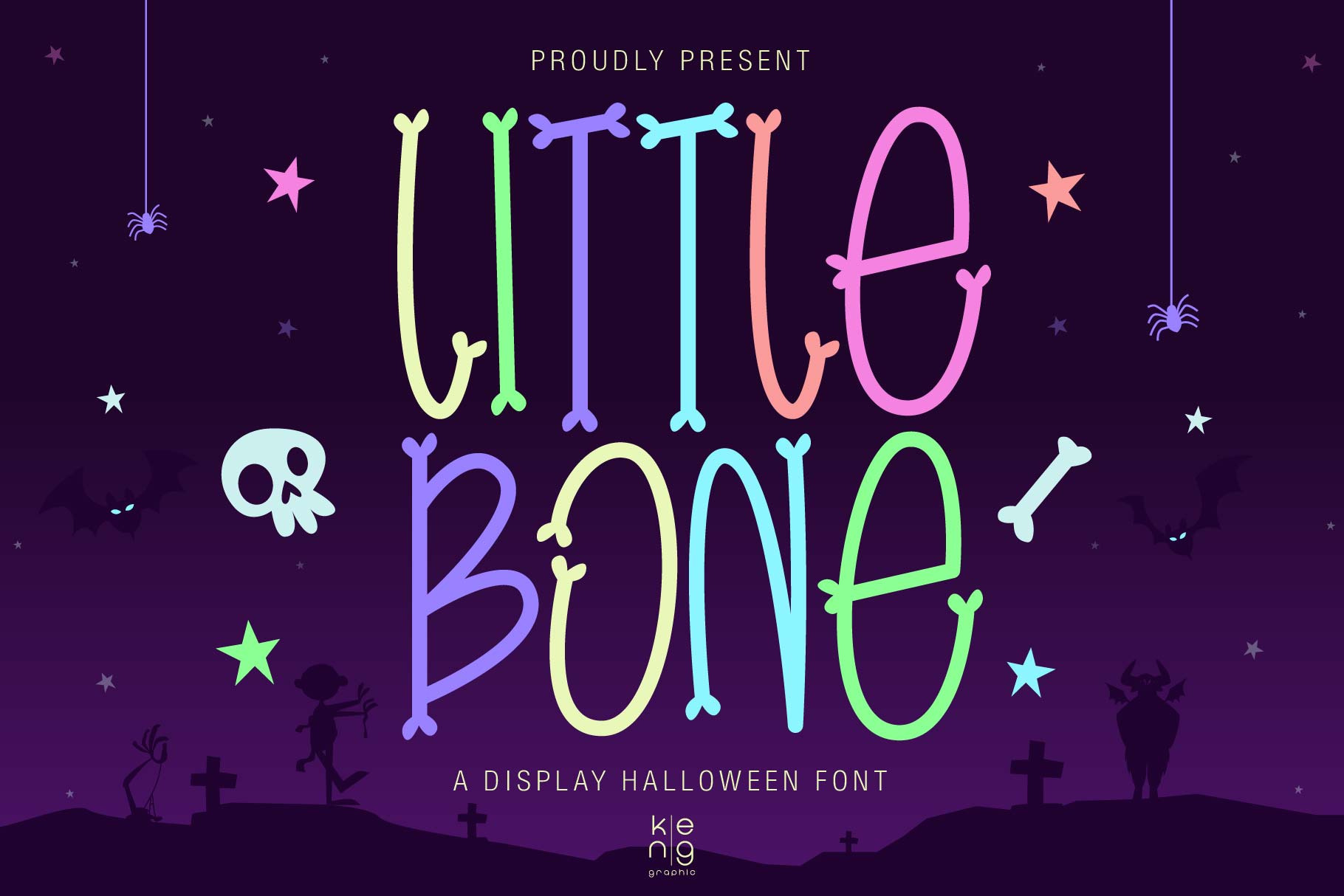
Little Bone Font
Meet Little Bone, a minimalist font, expertly sculpted with inspiration drawn from the skeletal structure. This charming typeface beautifully marries a playful spirit with an eerie flair, making it a perfect choice for Halloween-themed projects. Be it for designing fetching advertisement campaigns, creating catchy print on t-shirts or adding a unique touch to mugs, Little Bone allows you to ingeniously infuse an adorable yet haunting essence to all your creativity.